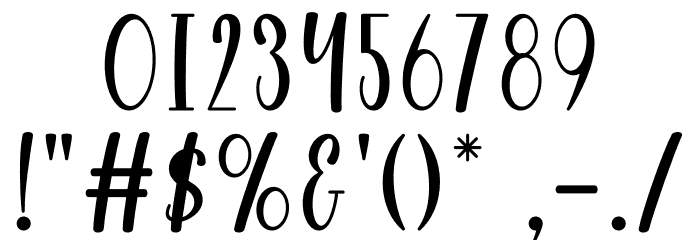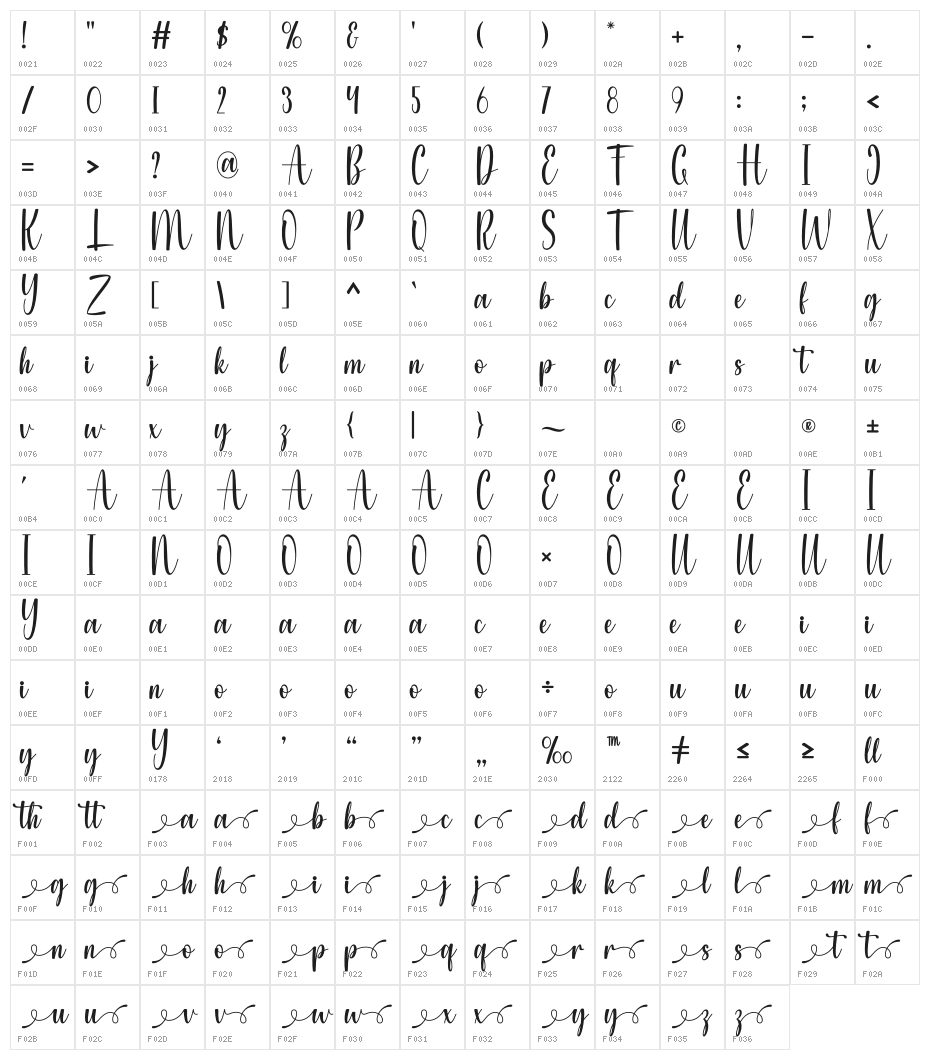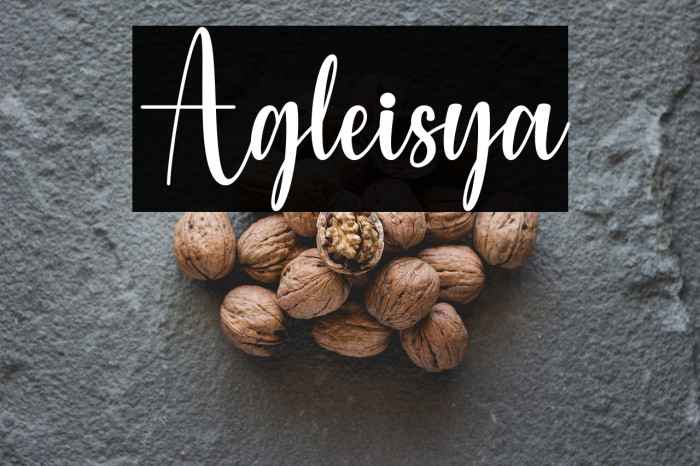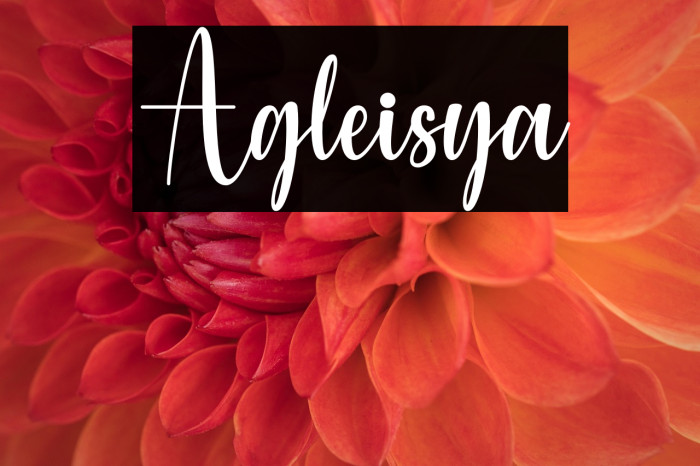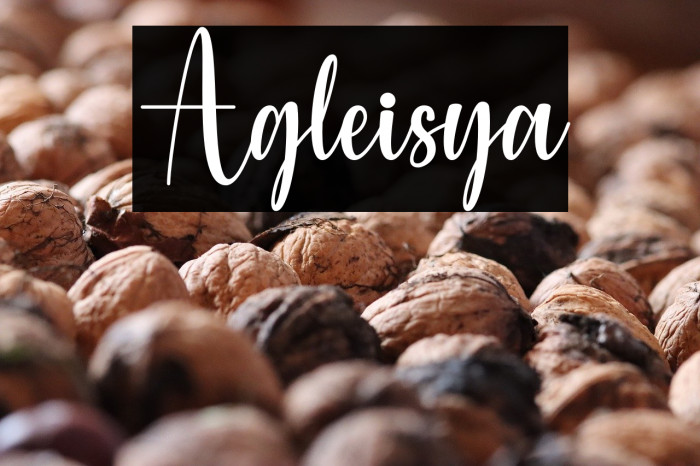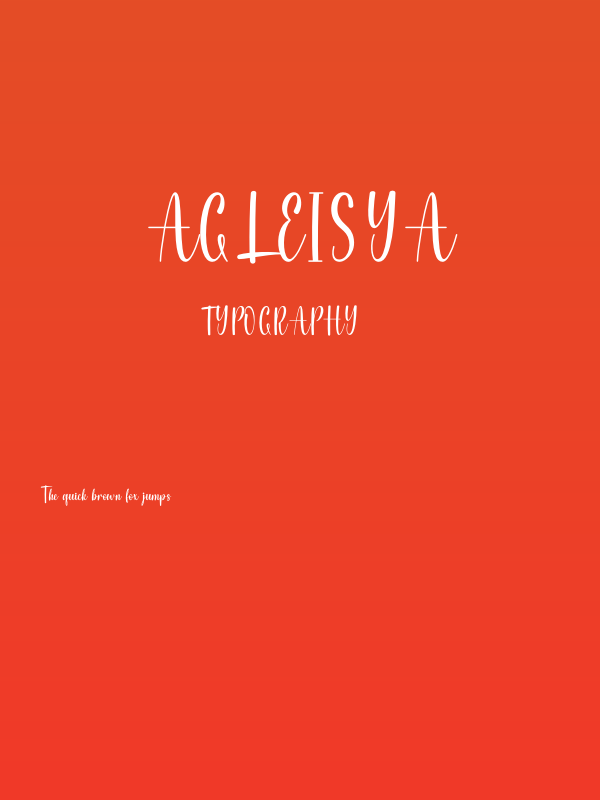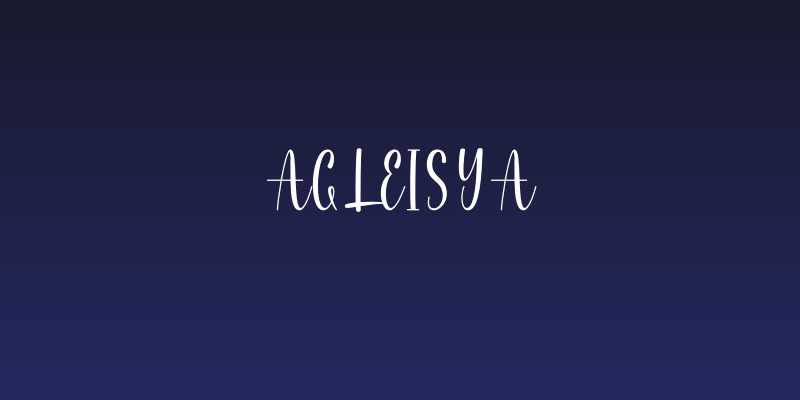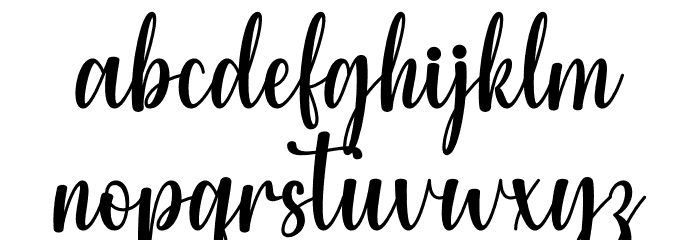
Agleisya Font
Agleisya Description
This font features a playful and elegant script style with a handwritten touch. The uppercase letters are tall and slender, with a slight slant that adds a dynamic flow. The lowercase letters are more rounded and connected, enhancing the cursive feel. The numbers maintain the same playful style, ensuring consistency across different uses. Special characters are creatively designed to match the overall aesthetic, making this font versatile for various applications. The strokes are smooth and fluid, giving it a lively and approachable appearance.
| Use Case | Logos, Invitations, Social Media |
| Proposed Projects | Ideal for wedding invitations, greeting cards, branding, and social media graphics. |